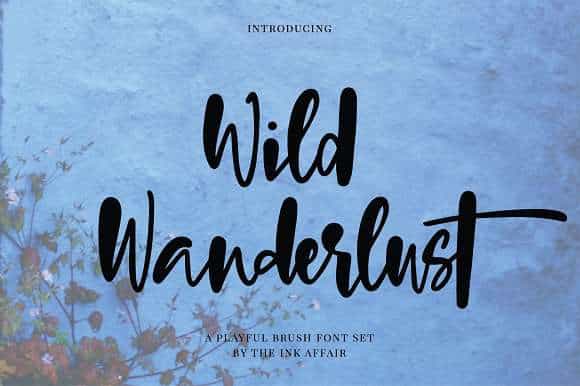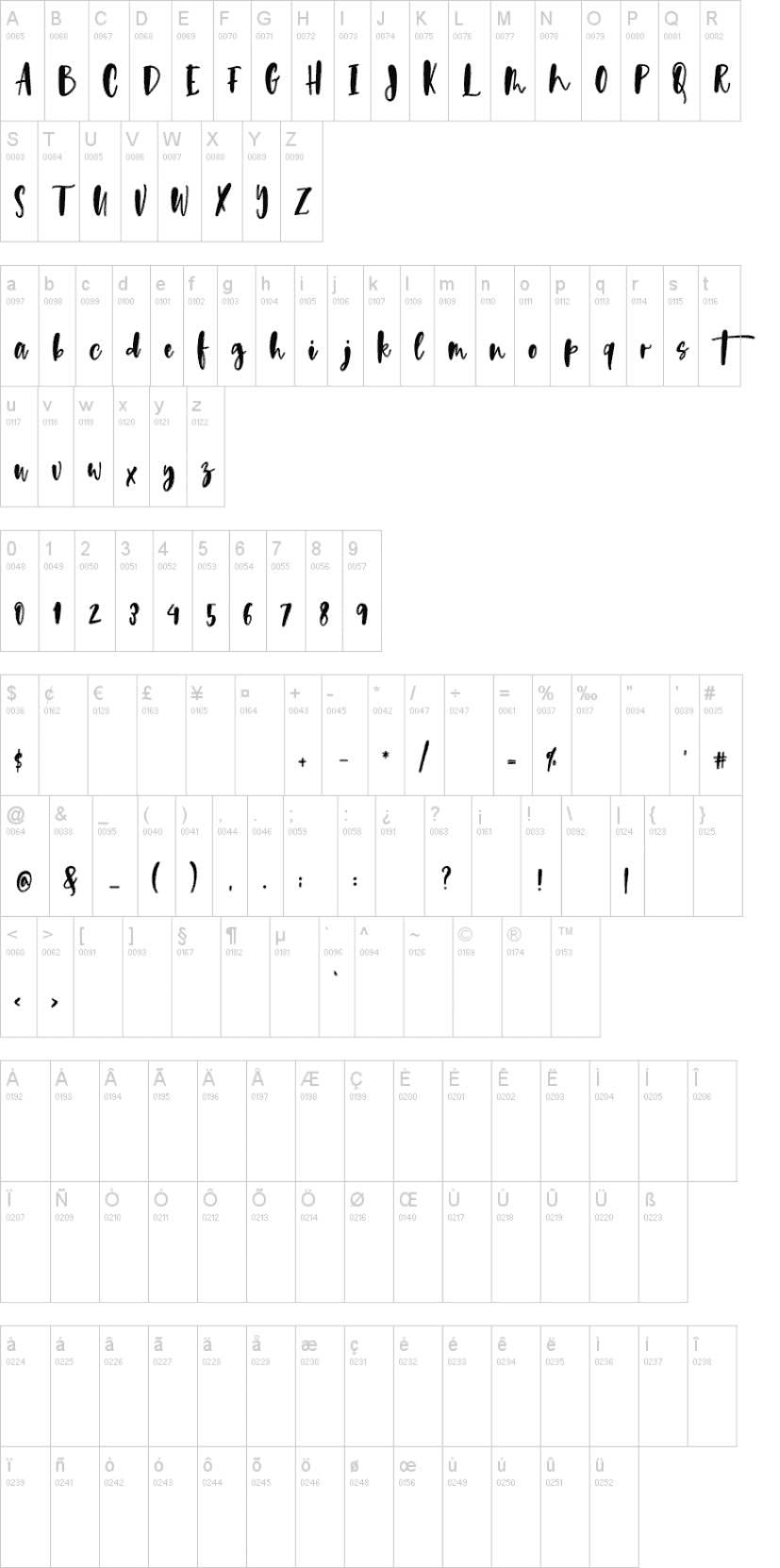
Discover Wild Wanderlust Font, part of the Brush collection—a versatile and unique font perfect for adding a personal touch to your projects. Download it for free and enjoy crafting designs with style, from invitations to social media posts. This font is available exclusively for personal use, giving you the freedom to create without limits. Unlock your creativity with Wild Wanderlust Font today!
Welcome Wild Wanderlust, an incredibly entertaining brush font that includes two sets of uppercase and lowercase alphabets. Wild Wanderlust is great for logos or quotes or branding, social media, invites, wedding stationery and oh, so many more!